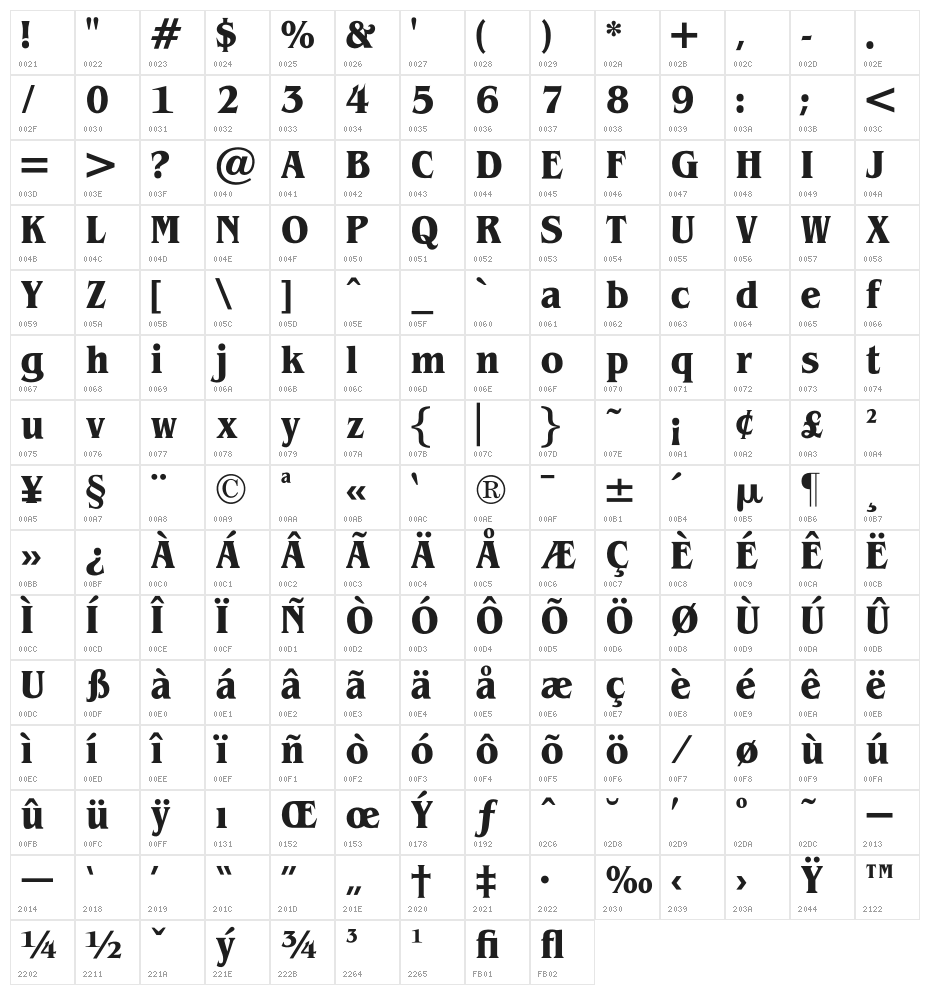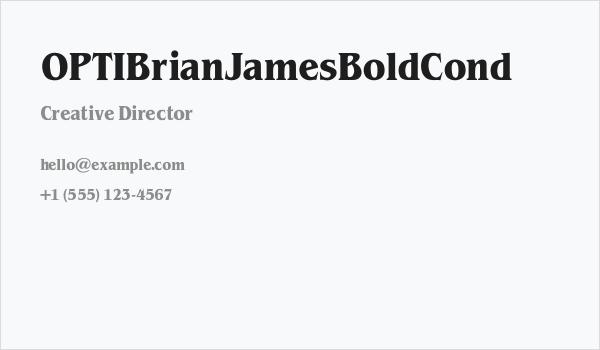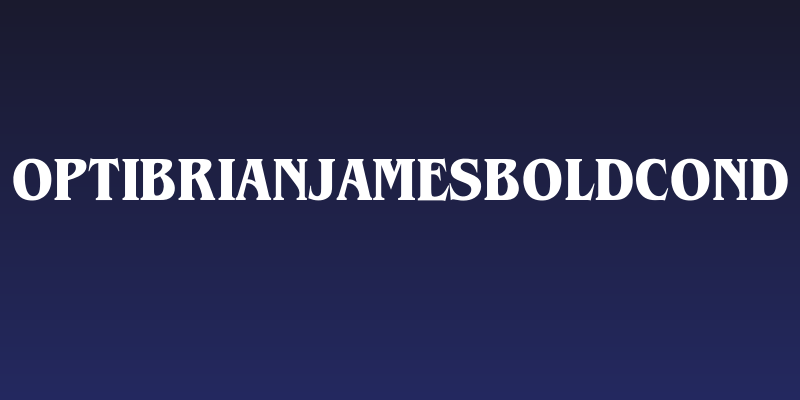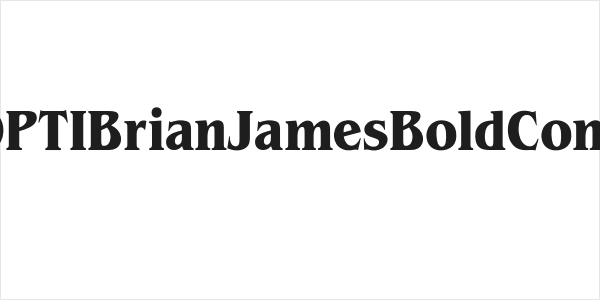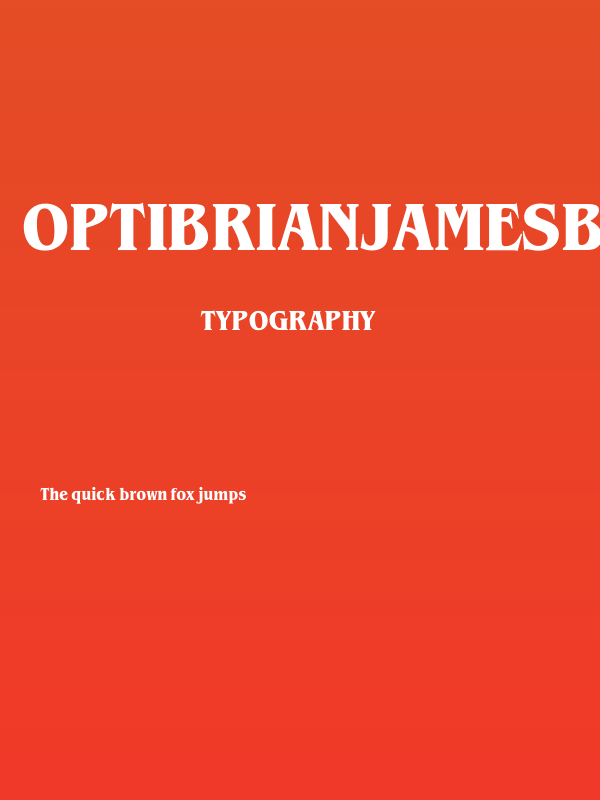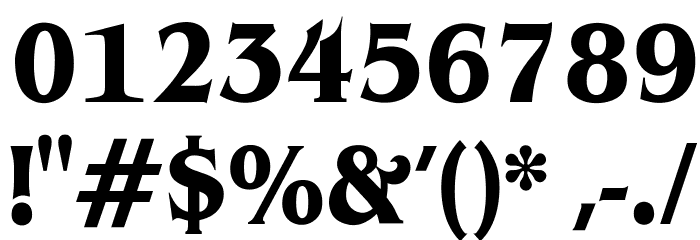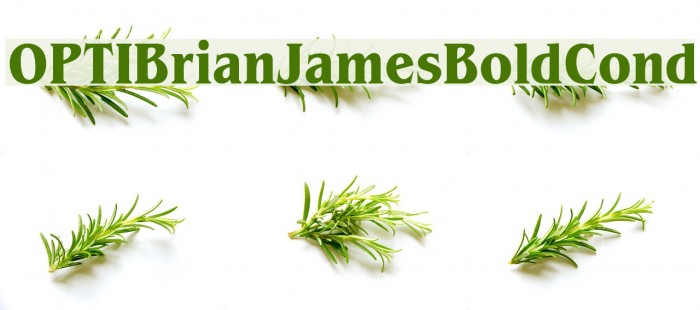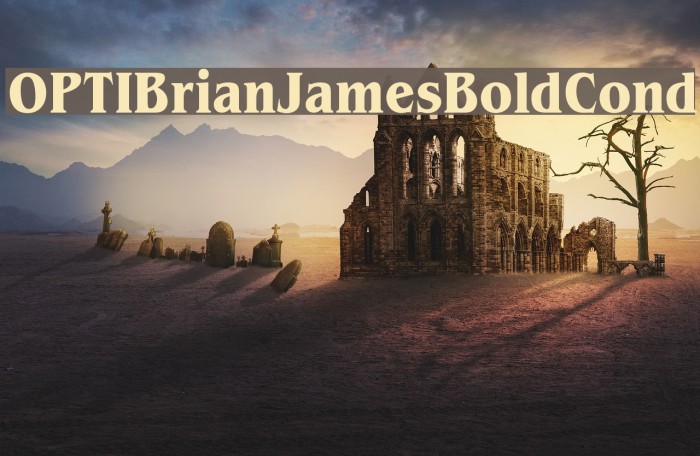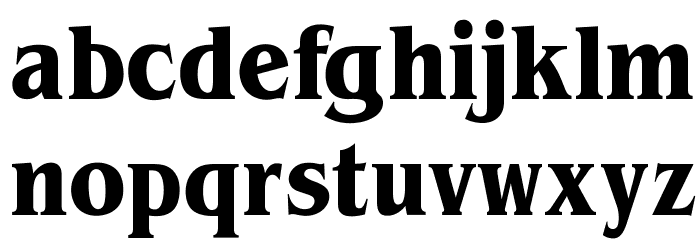
OPTIBrianJamesBoldCond Font
OPTIBrianJamesBoldCond Description
This font features bold, strong strokes with a classic serif style. The characters are well-defined with a high contrast between thick and thin lines, giving it a striking appearance. The uppercase letters are robust and commanding, while the lowercase letters maintain a consistent weight, providing a balanced look. The numerals are clear and legible, making them suitable for various applications. Special characters are distinct and harmonize well with the overall design. This font exudes a sense of authority and tradition, making it ideal for formal and impactful designs.
| Use Case | Headlines, Logos, Editorial |
| Proposed Projects | Ideal for book covers, editorial headlines, branding, and formal invitations. |